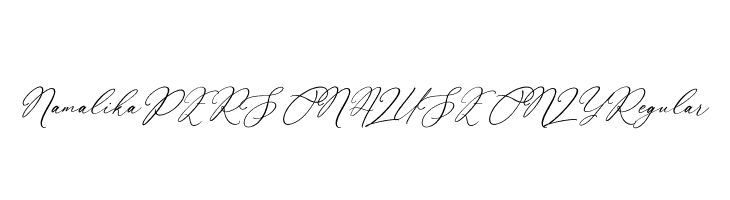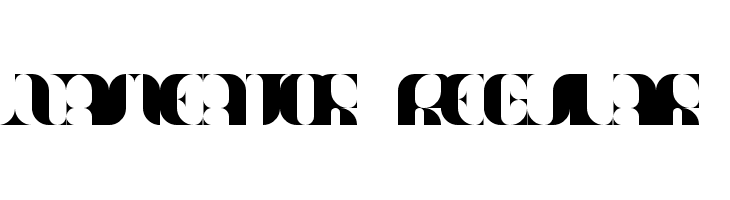
An elegant script font with flowing, cursive letterforms and artistic flair.
A modern, geometric font with bold, angular shapes and high contrast.
A bold, geometric font with angular, industrial design.
A bold, geometric font with artistic negative space and circular elements.
A playful, bold font with rounded, bubbly characters perfect for fun and informal designs.
A bold, distressed font with a rugged, grungy aesthetic.
A bold, distressed font with a rugged, textured appearance.
An elegant script font with flowing, decorative cursive letters.